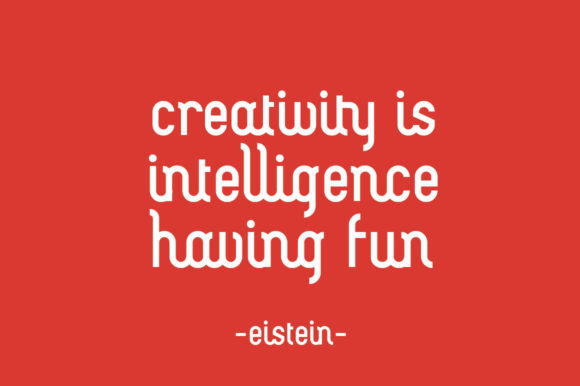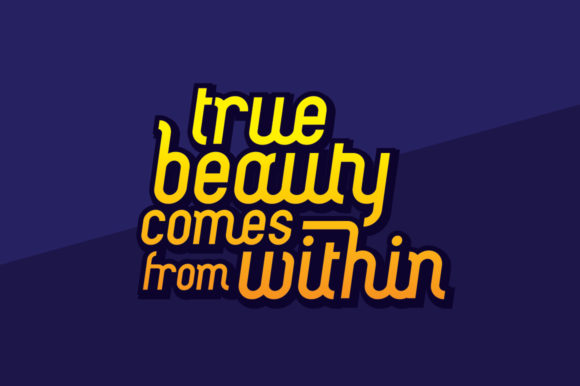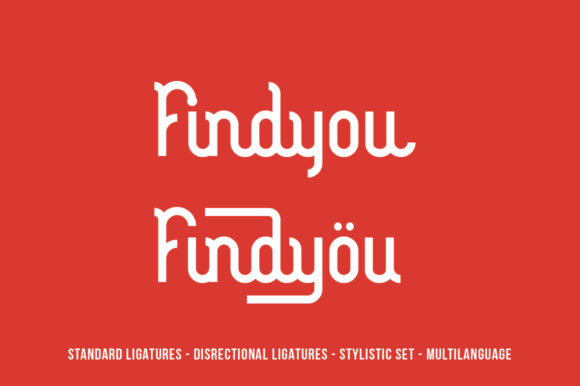
Introduction to Lastweek Font
As a designer, have you ever found yourself stuck in a creative rut, searching for that perfect font to elevate your project? I know I have. That’s why I’m excited to share with you a game-changing design resource: the Lastweek Font. This striking display font is about to become your new go-to for creating high-quality, eye-catching designs.
With its unique blend of rounded geometric shapes and solid monoline, the Lastweek Font offers a refreshing alternative to futuristic and high-tech fonts. Whether you’re working on a creative project that requires a touch of elegance or a bold statement, this versatile font has got you covered.
Key Features of Lastweek Font
- Features a unique, modern design that can add a touch of sophistication to any creative project.
- Perfect for use in a variety of creative projects, including logos, branding materials, and digital art.
Honest Review: Lastweek Font
I recently had the chance to work with the Lastweek Font, and I have to say, I’m quite impressed. As a designer, I’m always on the lookout for high-quality design resources that can elevate my creative projects. The Lastweek Font definitely delivers on that front.
What works well: ✨ The font is a free download, which is a huge plus in my book. It’s always great to have access to quality fonts without breaking the bank. The Lastweek Font also features a transparent background, making it easy to integrate into any design project. The font itself is clean and modern, with a sleek aesthetic that’s perfect for a variety of creative applications.
- Clean and modern aesthetic
Lastweek Font
Lastweek Font is a high-quality, free design resource perfect for creative projects. Its transparent background makes it easily adaptable to various backgrounds.
Tips for Getting the Most Out of Lastweek Font
Use Lastweek Font to add a unique touch to your designs. Experiment with different font sizes, colors, and combinations to create visually appealing effects.
Lastweek Font is perfect for creative projects such as: